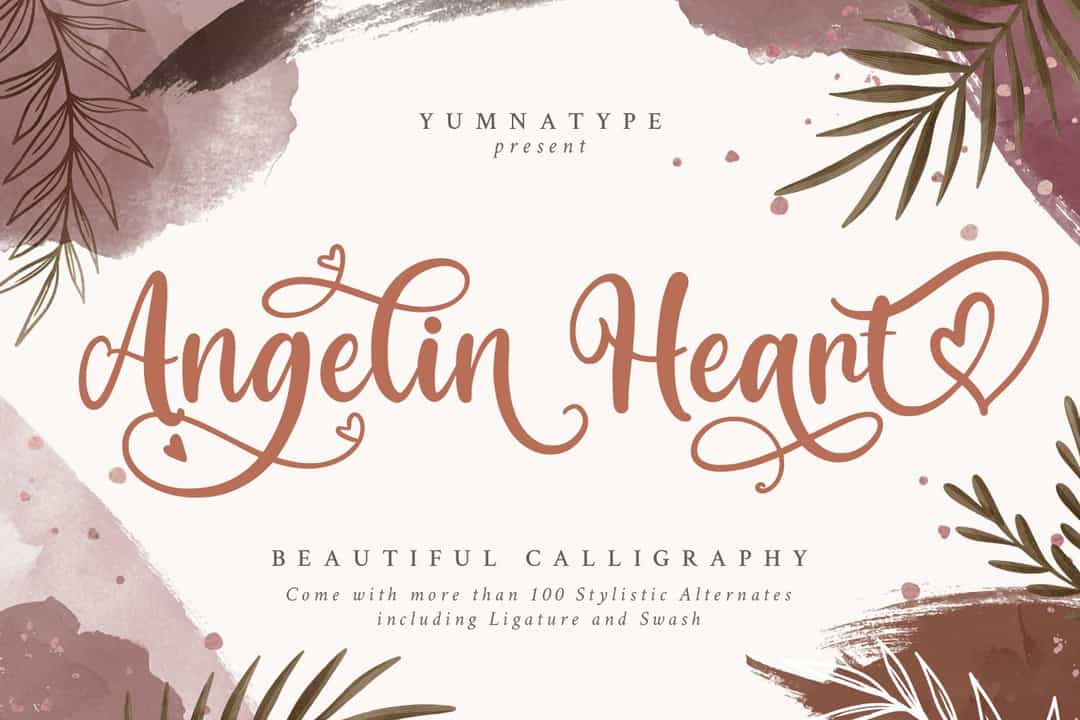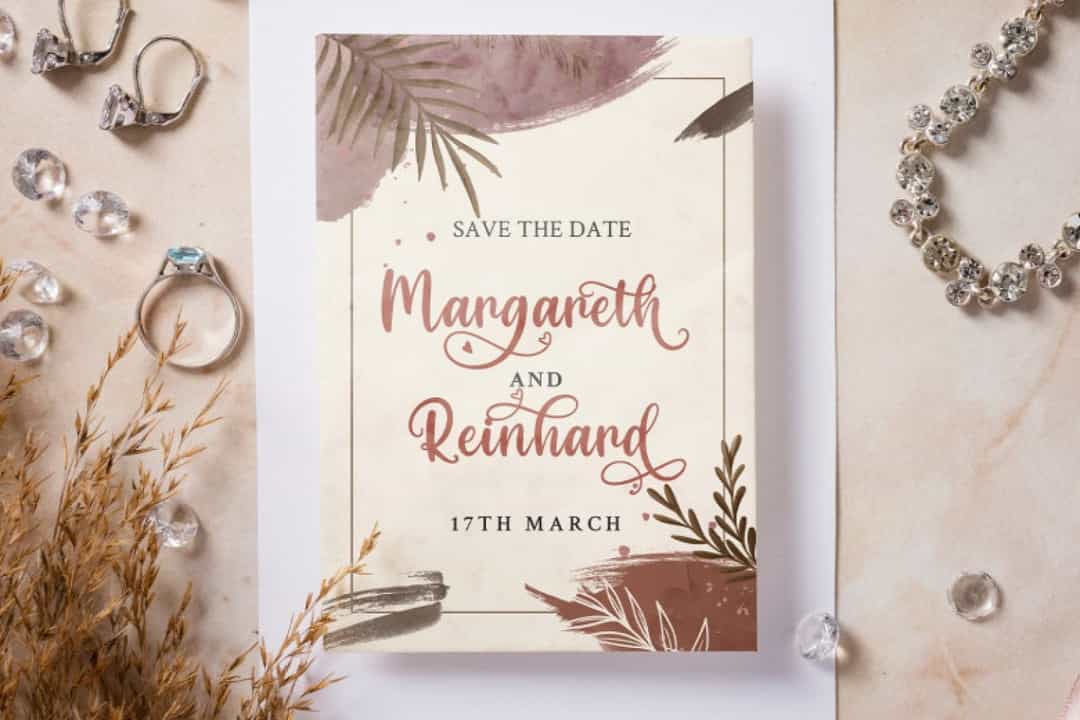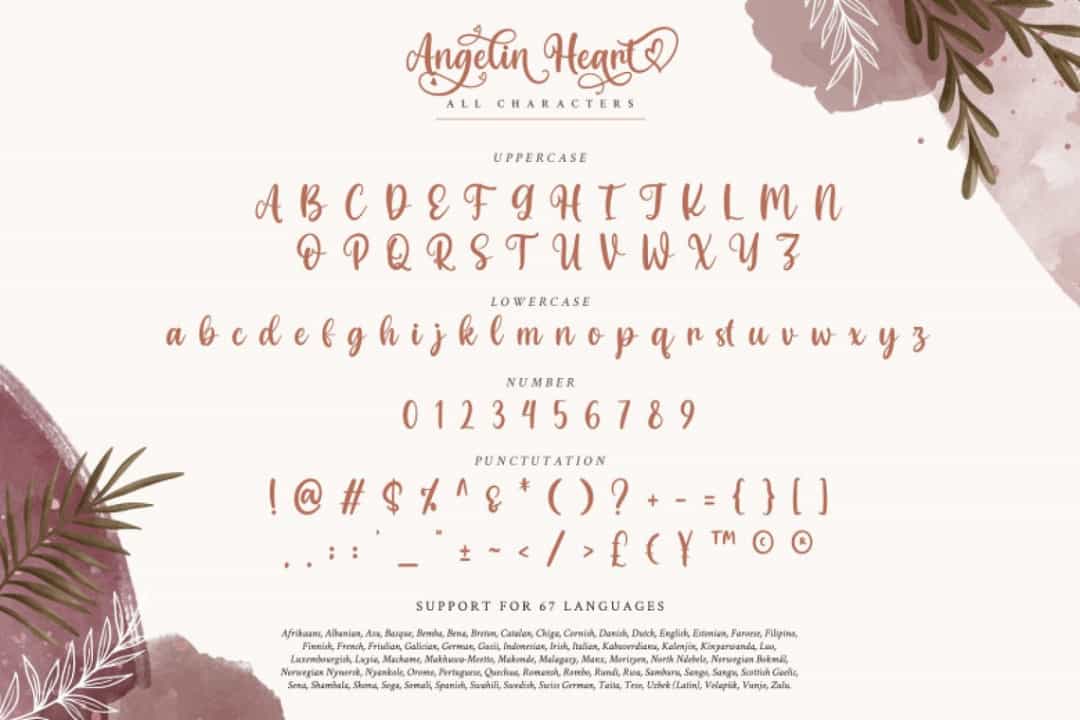
Angelin Heart Font is an eye-catching and elegant hand-crafted script type that will draw people’s attention and set your work apart. Ideal for posts on social media and advertisements, printed quotes, packaging designs and T-shirt graphics; as well as serving as an image background overlay text overlay. Plus it includes Multilingual Options so your logo will be internationally accepted!